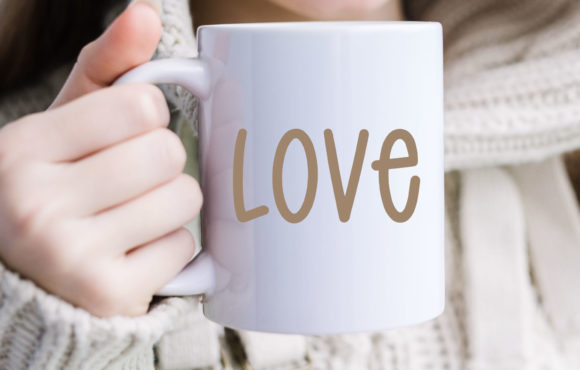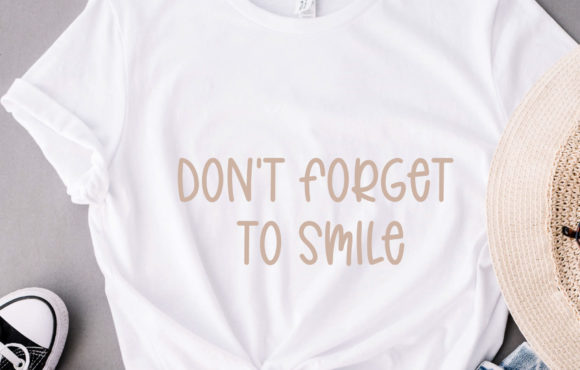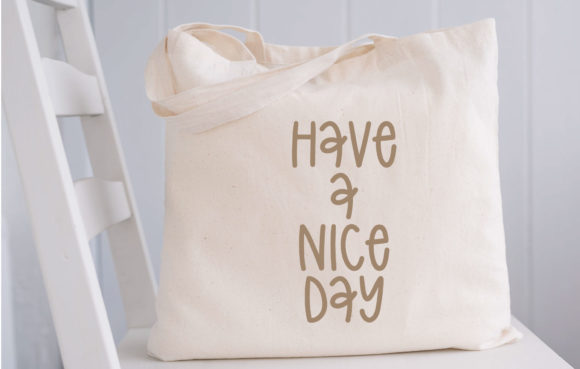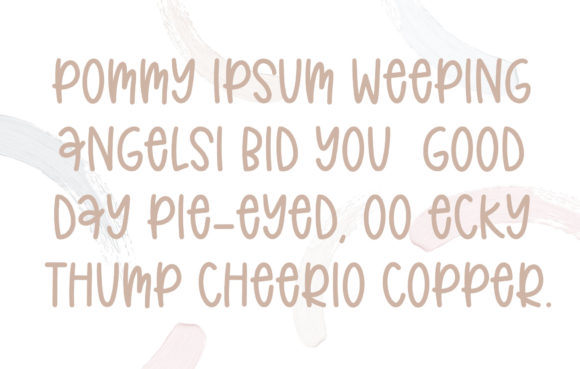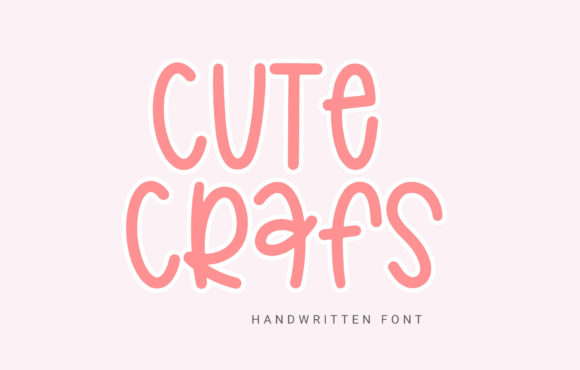
Cute Crafts Font: Add a Touch of Whimsy to Your Designs
Are you a designer or crafter looking for a font that can add a dash of personality to your projects? Look no further than Cute Crafts Font! This quirky and whimsical handwritten font is perfect for anyone who wants to infuse their designs with a sense of fun and playfulness. In this article, we’ll take a closer look at Cute Crafts Font, its features, and how you can use it to take your designs to the next level.
What is Cute Crafts Font?
Cute Crafts Font is a unique and charming handwritten font that is sure to capture the hearts of designers and crafters alike. Its natural and effortless style makes it incredibly versatile, and it’s perfect for a wide range of design projects. Whether you’re creating invitations, greeting cards, posters, or social media graphics, Cute Crafts Font is the perfect choice.
Features of Cute Crafts Font
So, what makes Cute Crafts Font so special? Here are just a few of its standout features:
- Quirky and whimsical: Cute Crafts Font has a playful, handwritten feel that’s sure to add a touch of personality to your designs.
- Natural and unique: This font has a distinctly human feel, making it perfect for designs that require a personal touch.
- Versatile: Cute Crafts Font can be used for a wide range of design projects, from formal invitations to social media graphics.
- Easy to read: Despite its playful feel, Cute Crafts Font is easy to read, making it perfect for designs that require a clear and concise message.
How to Use Cute Crafts Font
So, how can you use Cute Crafts Font in your designs? Here are a few ideas to get you started:
- Invitations: Use Cute Crafts Font to create custom invitations for parties, weddings, and other special events.
- Greeting cards: Add a personal touch to your greeting cards with Cute Crafts Font.
- Posters: Use Cute Crafts Font to create eye-catching posters for events, promotions, and more.
- Social media graphics: Add a touch of personality to your social media graphics with Cute Crafts Font.
- Crafting projects: Use Cute Crafts Font to add a personal touch to your crafting projects, such as scrapbooking, journaling, and more.
Tips for Using Cute Crafts Font
Here are a few tips for getting the most out of Cute Crafts Font:
- Experiment with different colors: Cute Crafts Font looks great in a variety of colors, so don’t be afraid to experiment and find the perfect hue for your design.
- Pair with other fonts: Cute Crafts Font pairs well with other fonts, so try combining it with a bold font for headings and a clean font for body text.
- Use it sparingly: While Cute Crafts Font is perfect for adding a touch of personality to your designs, it’s best used sparingly. Try using it for headings or key phrases to add emphasis.
Cute Crafts Font is a unique and charming handwritten font that’s perfect for designers and crafters who want to add a touch of personality to their projects. With its quirky and whimsical feel, natural and unique style, and versatility, Cute Crafts Font is sure to become a favorite in your design toolkit. So why wait? Download Cute Crafts Font today and start adding a touch of whimsy to your designs!